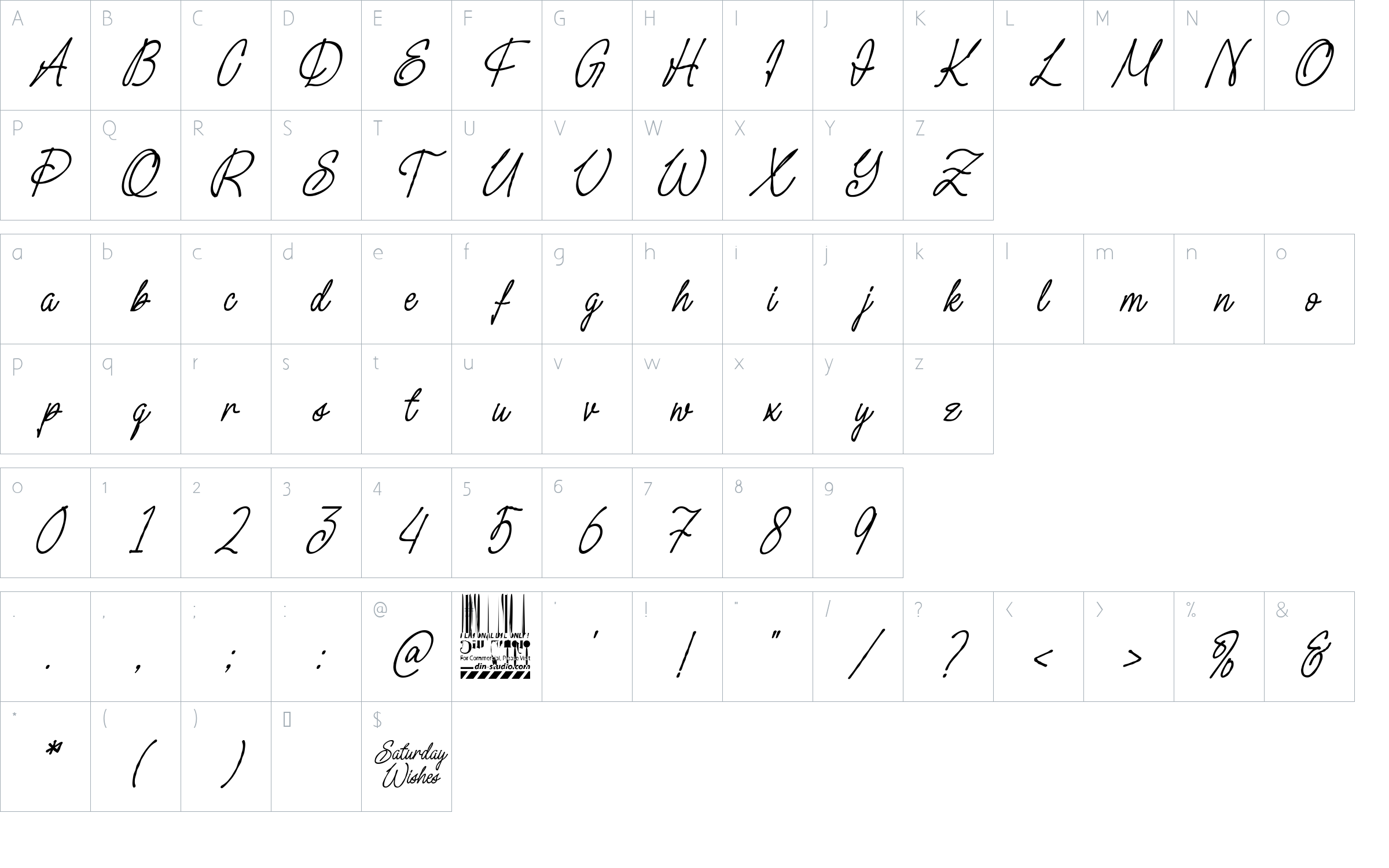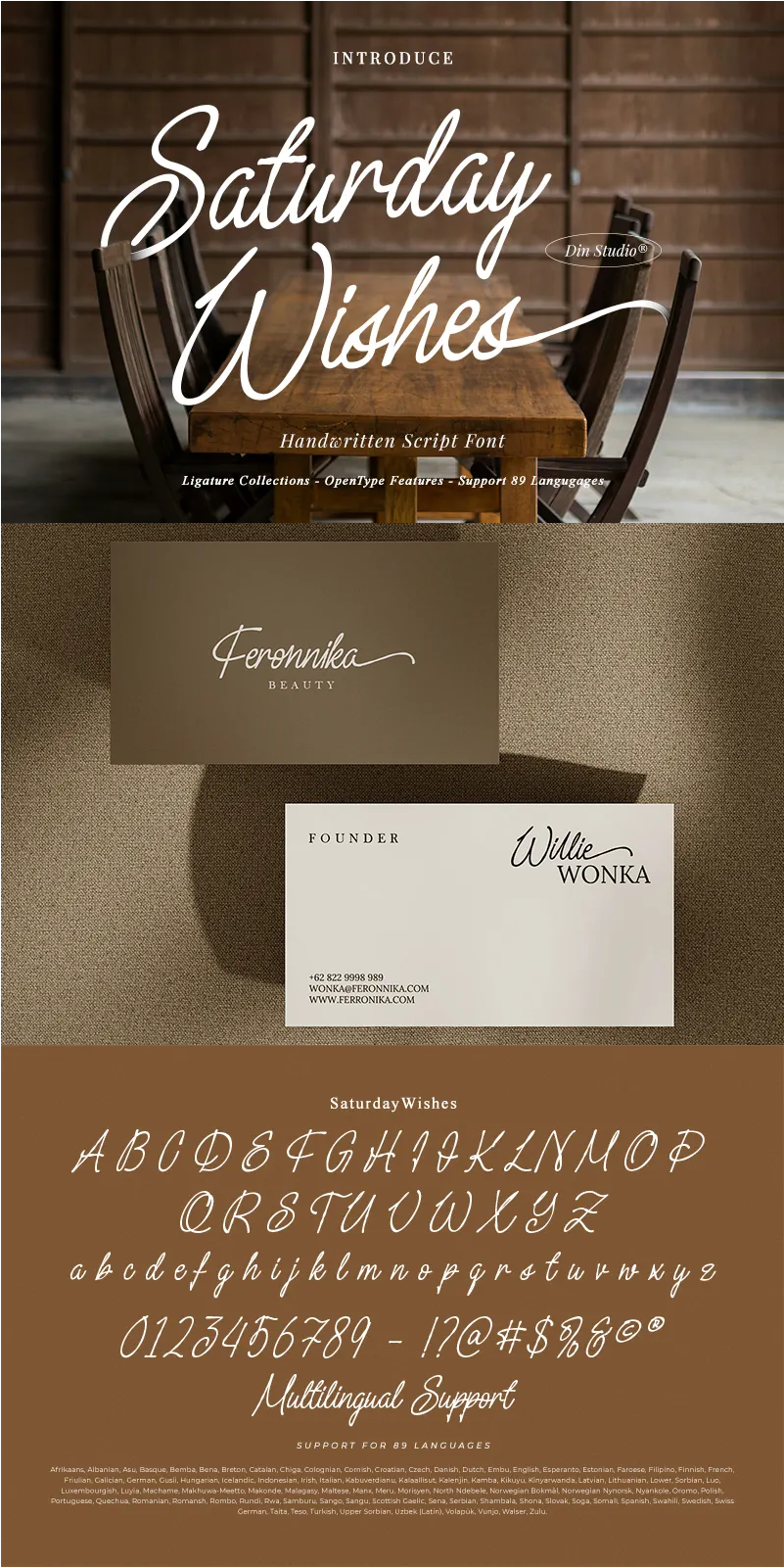
Saturday Wishes Font
About Saturday Wishes
Saturday Wishes is a delightful handwritten font that brings a sense of joy and whimsy to your designs. Crafted with a medium weight, the connected letters flow effortlessly, creating a harmonious and cohesive script. The consistent letter proportions ensure readability, while the playful swing at the end of each letter adds a touch of flair and personality. In addition, enjoy the features here.
Saturday Wishes fits in logos, posters, flyers, branding materials, print media, editorial layouts, and many more designs. Find out more ways to use this font by taking a look at the font preview.